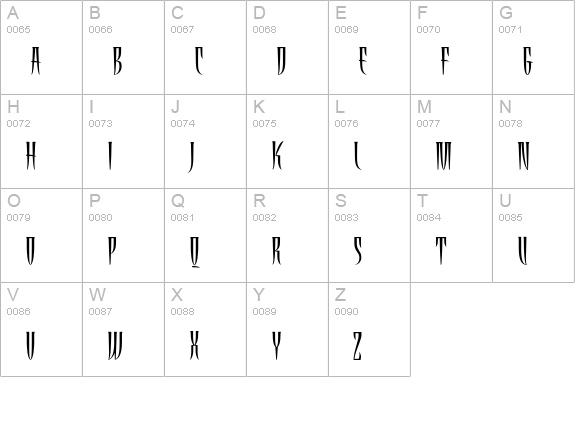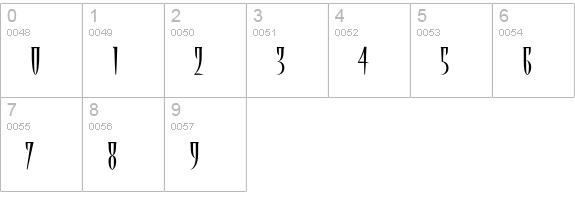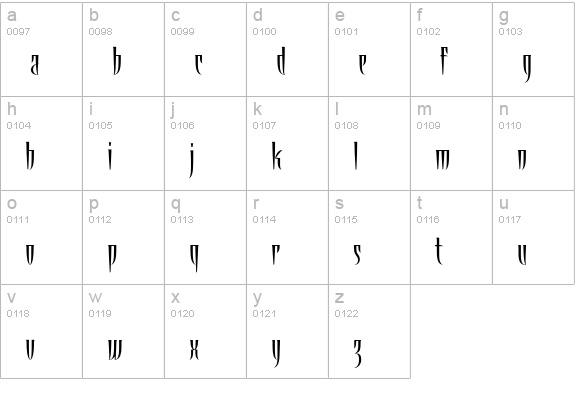
Talon Font Details
Introducing Talon, a visually striking and versatile font that embodies elegance and modernity. With its sleek and sophisticated design, Talon effortlessly captures attention and adds a touch of refinement to any project. This font's sleek lines and sharp edges create an edgy yet polished look, making it perfect for a wide range of creative endeavors. Talon is not only visually captivating but also incredibly flexible, making it suitable for various design styles and purposes. Whether you're designing a logo, crafting a magazine layout, or creating eye-catching social media graphics, Talon will elevate your work to new heights. One of the standout features of Talon is its exceptional readability. Each character is meticulously crafted to ensure legibility, even at smaller sizes. This makes Talon an excellent choice for both print and digital mediums, guaranteeing an optimal reading experience for your audience. And the best part? Talon is completely free! You can download this remarkable font at FontsMarket.com, a trusted platform for high-quality fonts. Simply head over to FontsMarket.com, search for Talon, and unlock the potential of this extraordinary font. Whether you're a professional designer or an aspiring creator, Talon is a valuable addition to your font library. Don't miss out on the opportunity to enhance your designs with Talon's captivating aesthetic and impeccable readability. Download this free font today and let your creativity soar to new heights with Talon from FontsMarket.com.